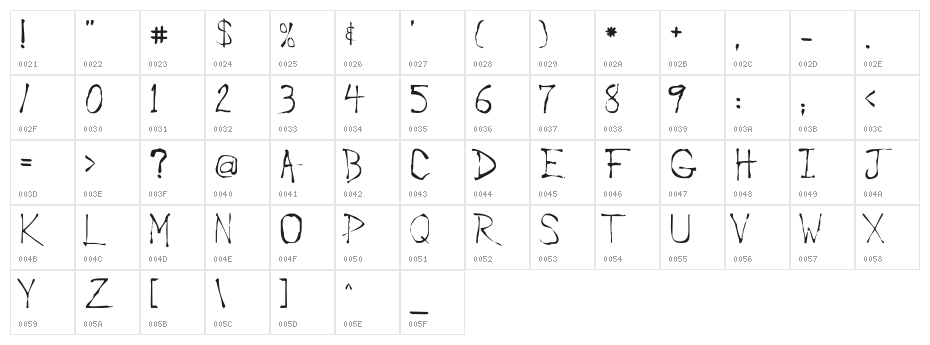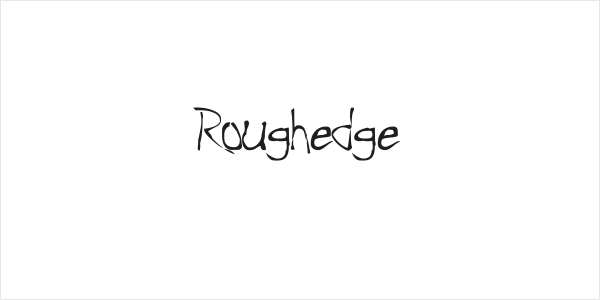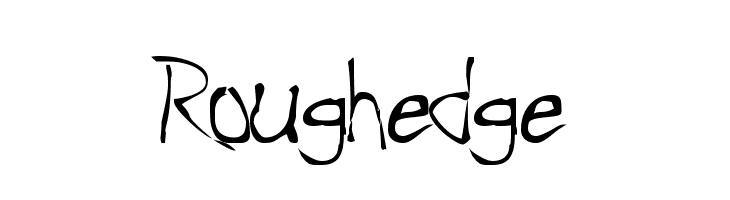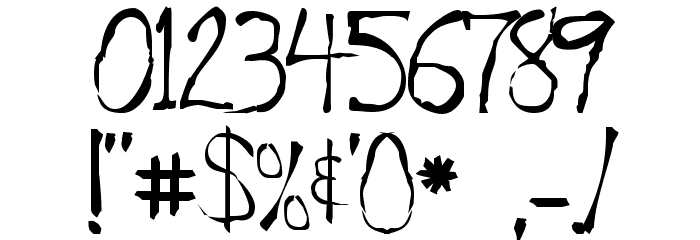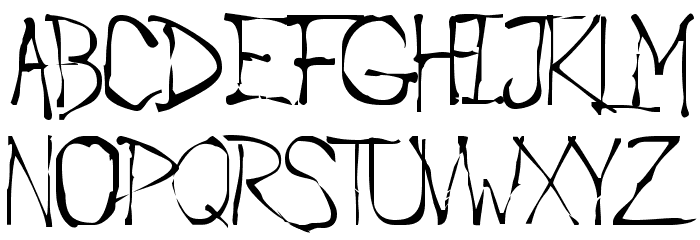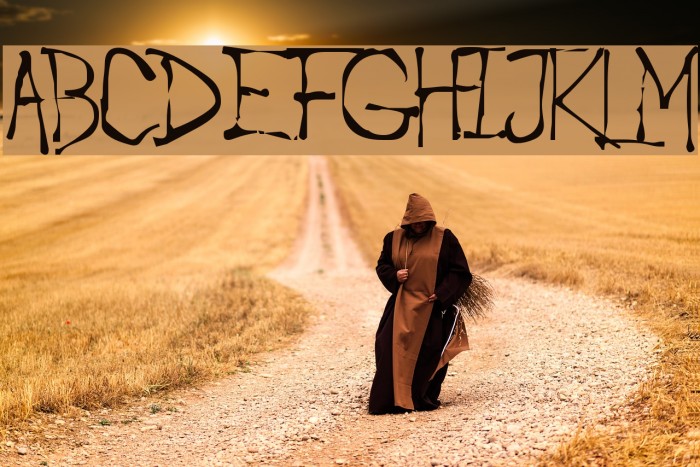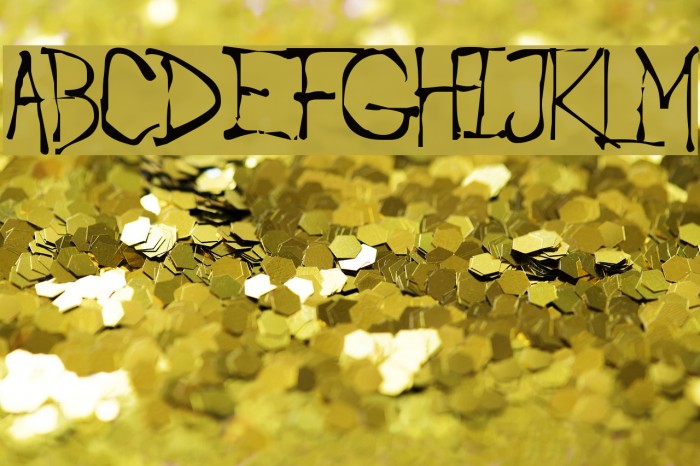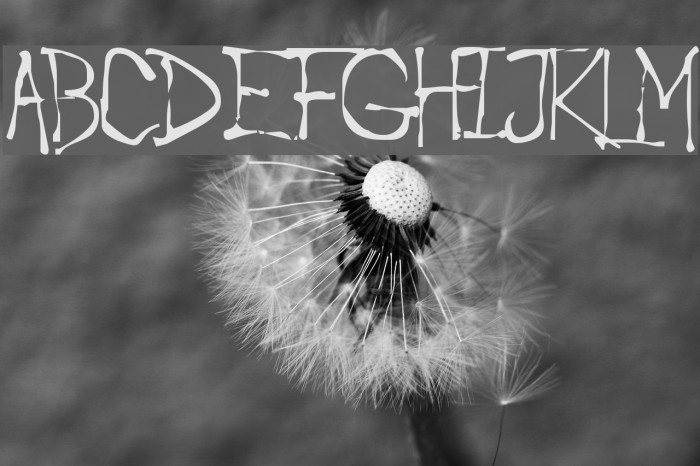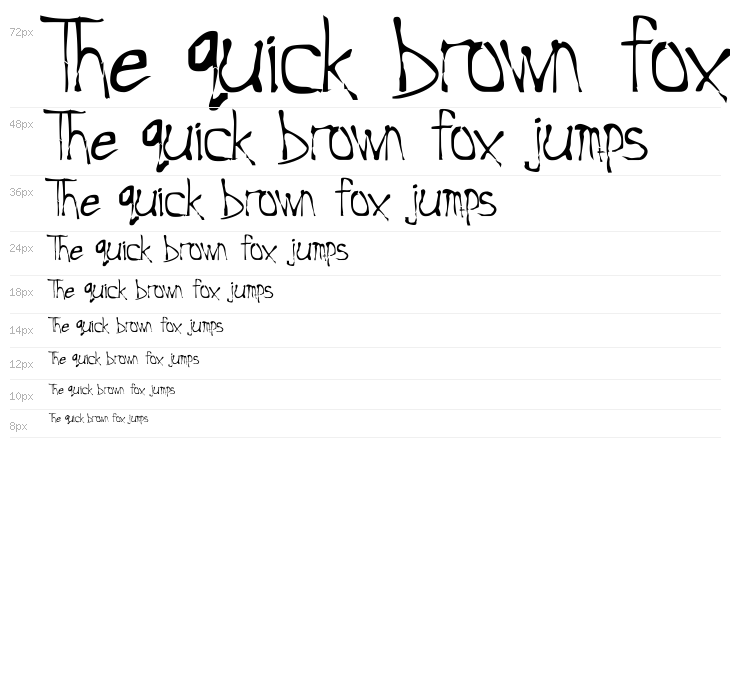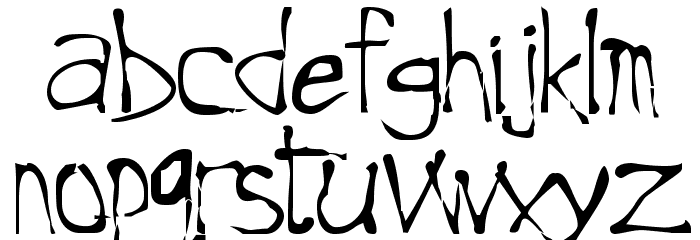
Roughedge Font
Roughedge Description
This font features a rugged, distressed appearance with uneven edges and a hand-drawn quality. The characters exhibit a raw, organic feel, as if sketched with a rough brush or pen. The uppercase and lowercase letters maintain a consistent style, with jagged lines and irregular forms that convey a sense of spontaneity and artistic flair. The numerals and special characters follow the same aesthetic, adding to the font's cohesive look. This style is ideal for projects that require a bold, edgy statement, capturing attention with its unique and unconventional design.